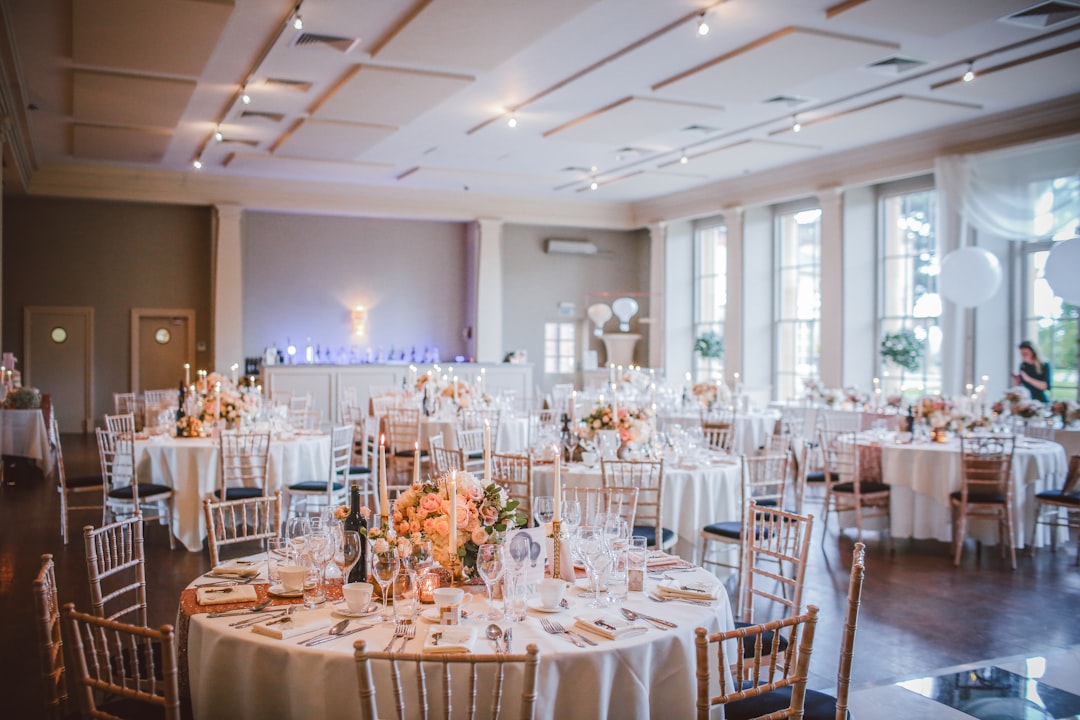
Minimalist Wedding Design Ideas 2026 Style Guide
Minimalist Wedding Design Ideas: The Complete Style Guide for 2026
Introduction
Minimalist wedding design has evolved from a niche aesthetic into one of the most sought-after wedding styles of 2026. If you’re drawn to clean lines, intentional spacing, and understated elegance, a minimalist approach to your wedding design offers sophistication without excess. This comprehensive guide explores how to create a stunning minimalist wedding that feels intentional, modern, and deeply personal—without relying on ornate decorations or overcomplicated themes.
Minimalism in weddings isn’t about boring or cold aesthetics. Instead, it celebrates the power of restraint, quality over quantity, and thoughtful curation. Every design element serves a purpose, every color choice is deliberate, and every detail contributes to an overall sense of calm elegance.
What Defines Minimalist Wedding Design?
Minimalist wedding design rests on four core principles:
- Simplicity: Remove non-essential elements. Every flower, font choice, and decoration should earn its place.
- Quality Materials: Invest in premium paper stock, refined metalwork, natural fibers, and high-quality flowers rather than quantity.
- Neutral Color Palettes: Focus on whites, creams, blacks, soft grays, and natural tones, with occasional muted accent colors.
- Intentional Spacing: Allow breathing room in your design. Don’t fill every inch of your invitation or every corner of your venue.
These principles create an atmosphere of refinement and calm—a striking counterpoint to maximalist, highly decorated wedding trends.
Core Elements of Minimalist Wedding Aesthetics
Color Palettes for Minimalist Weddings
The foundation of minimalist design begins with color. 2026 minimalist weddings favor:
- Monochromatic whites and creams: Different tones of white create depth without introducing color.
- Black and white contrast: Dramatic yet understated.
- Warm neutrals: Taupe, warm gray, and soft beige introduce warmth.
- Single accent color: One muted tone—sage green, soft terracotta, or dusty blue—added sparingly.
- Natural tones: Inspired by raw wood, stone, and linen.
The key is restraint. If you choose a color palette of five shades, use them consistently across invitations, florals, linens, and signage.
Typography and Invitation Design
Typography is essential to minimalist wedding branding. Select one or two typefaces that reflect your aesthetic:
- Sans-serif fonts: Clean, modern, and inherently minimal (Helvetica, Futura, or contemporary alternatives).
- Refined serif fonts: Elegant and timeless without being ornate.
- Generous white space: Spread text across invitations with breathing room between lines and margins.
Minimalist invitations might feature:
- Single-color printing on premium cardstock
- Centered or left-aligned text
- Thin, elegant borders or no borders at all
- Flat card design without embellishments
A well-designed minimalist invitation communicates sophistication immediately. The absence of decoration becomes the decoration.
Design Principles for Minimalist Weddings
The Power of White Space
White space (or negative space) is your most powerful design tool. It creates visual calm and draws attention to what matters. On an invitation, white space around text makes the information feel important and easy to read. In a venue, empty walls and open tables feel more spacious and intentional than crowded designs.
Material Quality Over Decoration
Instead of layering decorations, invest in:
- Premium paper stocks: Textured, heavyweight cardstock communicates quality.
- Natural materials: Unfinished wood, stone, linen, and raw metals.
- Botanical elements: Single stems, minimal greenery, and natural flowers in one or two varieties.
- Metallic accents: Brushed gold, matte silver, or copper in measured amounts.
Monochromatic Florals
Minimalist florals don’t mean fewer flowers—they mean intentional selection. Consider:
- All-white floral arrangements with varying textures (roses, pampas grass, eucalyptus)
- Single-variety bouquets (all garden roses, all tulips)
- Structural elements like branches, grasses, and foliage over filler blooms
- Negative space within arrangements
Practical Planning Tips for Your Minimalist Wedding
Step 1: Define Your Color Story
Before choosing any vendor or design element, establish your complete color palette. Create a mood board using Unsplash, Pinterest, or design tools. Limit yourself to 3–5 colors maximum. Share this palette with your florist, stationer, and venue coordinator.
Step 2: Curate Your Vendor Team
Work with vendors who understand minimalism. Ask:
- Do you have experience with minimalist designs?
- Can you recommend minimal floral arrangements?
- How do you approach simple, elegant aesthetics?
A florist accustomed to lush, complicated arrangements may struggle with minimalist restraint.
Step 3: Create Design Guidelines
Develop a simple style guide for your wedding:
- Color codes (HEX codes for digital sharing)
- Approved fonts
- Photography style preferences
- Venue styling principles
This ensures consistency across all touchpoints.
Step 4: Plan Your Signage and Stationery
Minimalist signage works beautifully when executed with intention:
- Hand-lettered or printed signs on simple wood or metal stands
- Consistent typography across all signage
- Minimal text—only what’s necessary
- Generous margins and spacing
Wedding Branding and Cohesive Design Systems
Minimalist weddings benefit tremendously from a comprehensive branding approach. Your wedding brand encompasses:
- Logo or monogram: A simple, refined mark incorporating your initials or wedding date.
- Typography system: Two complementary typefaces used consistently across all materials.
- Color palette: Your complete color story applied to invitations, signage, stationery, and florals.
- Invitations and stationery: Premium paper stock, minimal ornamentation, generous white space.
- Signage: Consistent fonts and layouts for programs, menus, and directional signage.
- Photography style: Clear direction toward natural lighting, uncluttered backgrounds, and intentional composition.
This cohesive approach transforms individual elements into a unified aesthetic. When your invitations, signage, florals, and overall venue styling speak the same visual language, the effect is powerful and intentional. Couples and designers exploring advanced typography resources and design systems for wedding branding can find inspiration at https://fonts.wedding, where curated collections support minimalist and modern aesthetic development.
Real Wedding Inspiration: Minimalist in Action
Case Study: The Modern Rooftop Ceremony
A couple in Brooklyn chose an industrial rooftop venue with concrete and steel architecture. Their minimalist design enhanced the space:
- All-white florals with stark architectural branches
- Black and white invitations with generous spacing
- Simple wood tables with linen runners
- Single candle at each place setting
- Monochromatic photography direction
The result: The minimalist design made the venue’s architecture the hero. Guests felt the intention behind every choice.
Case Study: The Garden Minimalist Wedding
A couple in California created minimalism in a traditional garden setting:
- Soft cream and sage color palette
- Abundant but simple white flowering trees as primary décor
- Minimal table flowers—single stems in bud vases
- Handwritten menus on kraft paper
- Photography focused on natural light and uncluttered moments
The minimalist approach prevented the garden from feeling cluttered. Instead, the space felt curated and calm.
Common Mistakes to Avoid
- Mistake 1: Confusing Minimalism with “Cheap”
Minimalist doesn’t mean inexpensive. Premium paper stocks, quality flowers, and professional design cost money. The savings come from eliminating unnecessary elements, not from cutting corners on quality. - Mistake 2: Forgetting About Comfort
Minimalist venues shouldn’t feel cold or unwelcoming. Balance simplicity with warmth—candlelight, soft textiles, and thoughtful seating create comfort alongside restraint. - Mistake 3: Over-Explaining Your Style
Don’t apologize for the simplicity. Let the design speak for itself. Guests will feel the intentionality without explanation. - Mistake 4: Inconsistent Execution
If your invitation is minimalist but your florals are overwhelming, it undermines the overall design.
FAQ
Q: What are the key features of a minimalist wedding?
A: Key features include simplicity, quality materials, neutral color palettes, and intentional spacing.
Q: How can I ensure my wedding feels warm and inviting while maintaining a minimalist aesthetic?
A: Incorporate elements like candlelight, soft textiles, and comfortable seating to balance simplicity with warmth.
Q: Can I use color in a minimalist wedding?
A: Yes, select a single accent color and use it sparingly within a neutral palette to maintain a minimalist look.